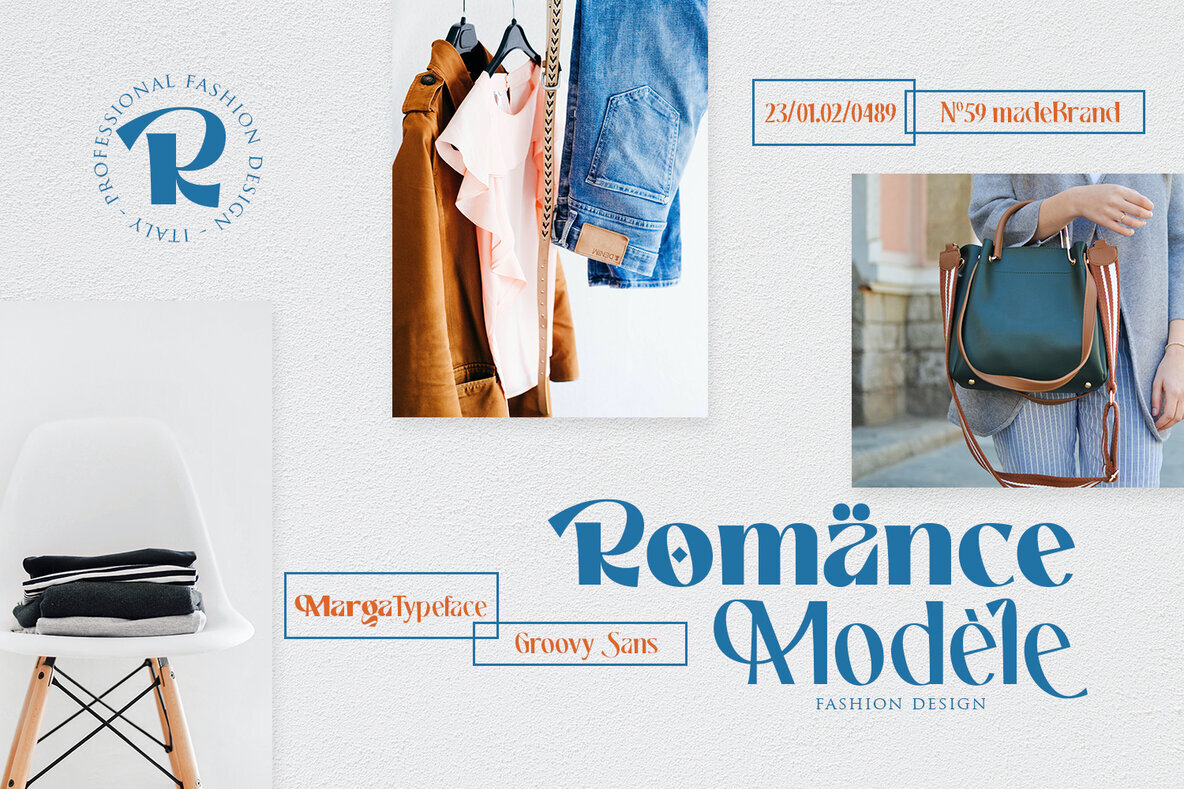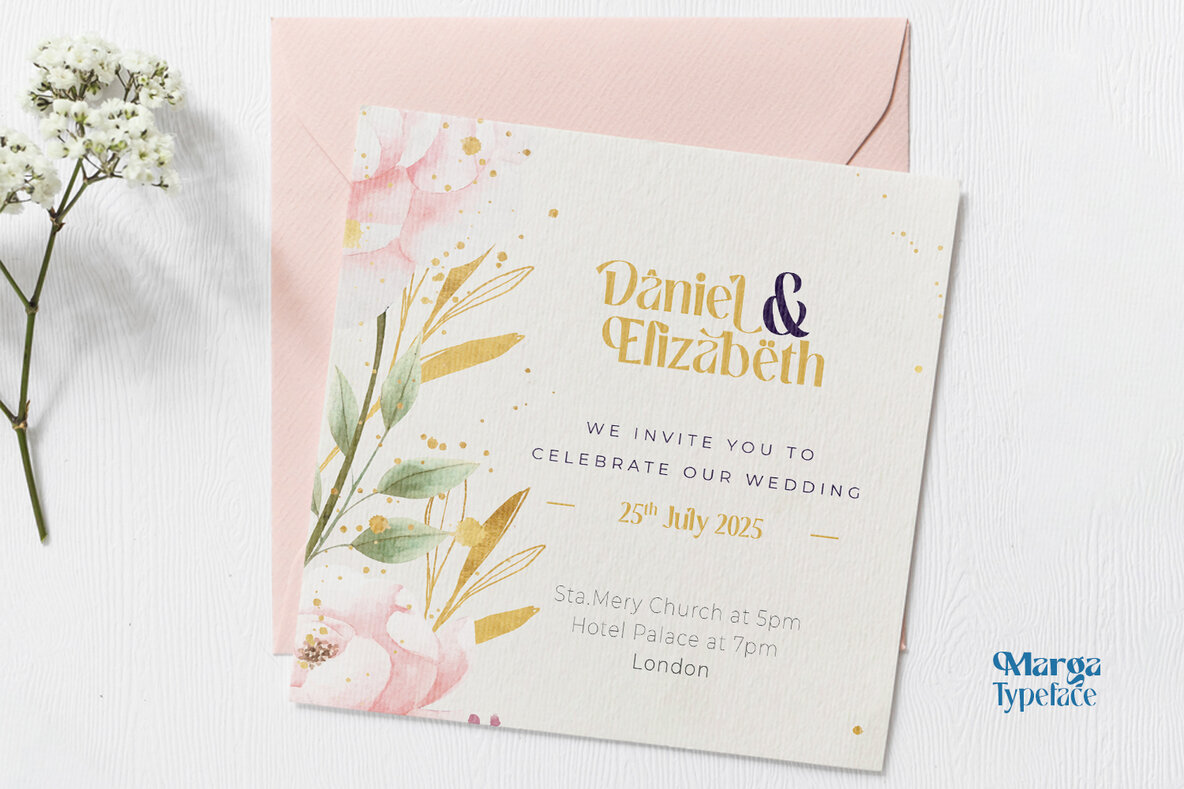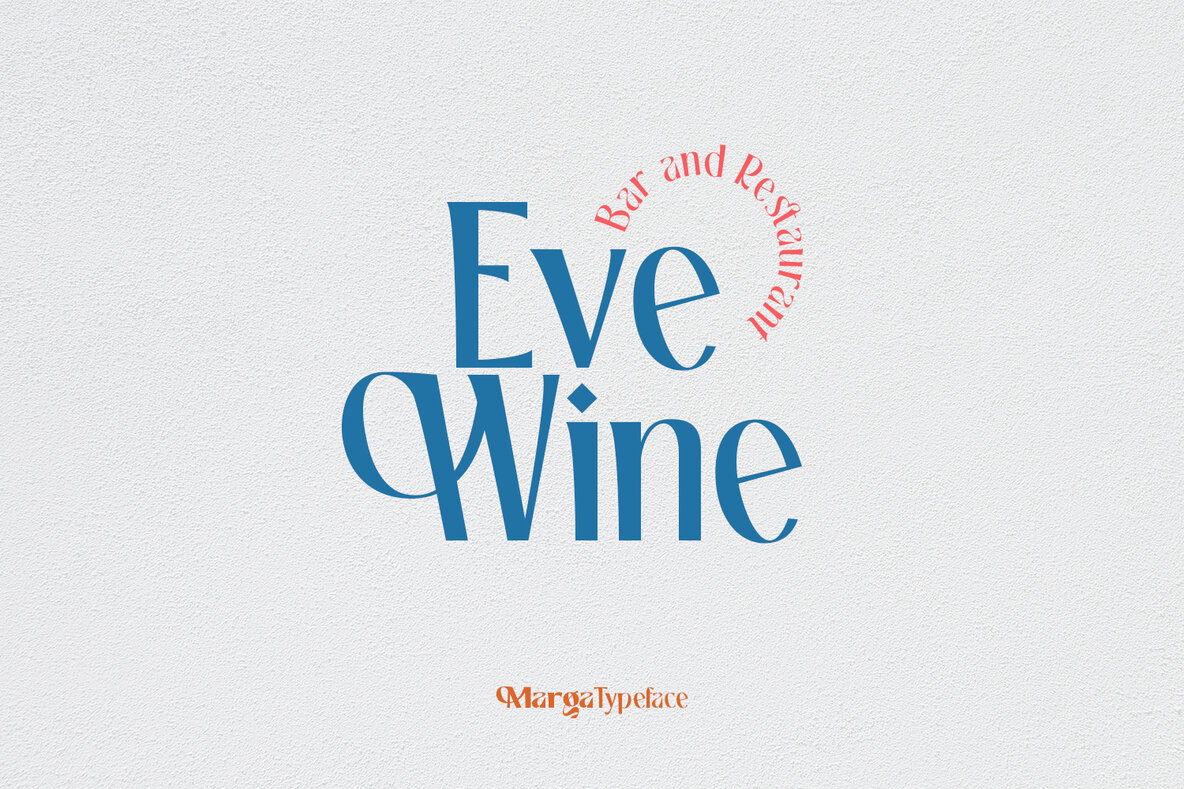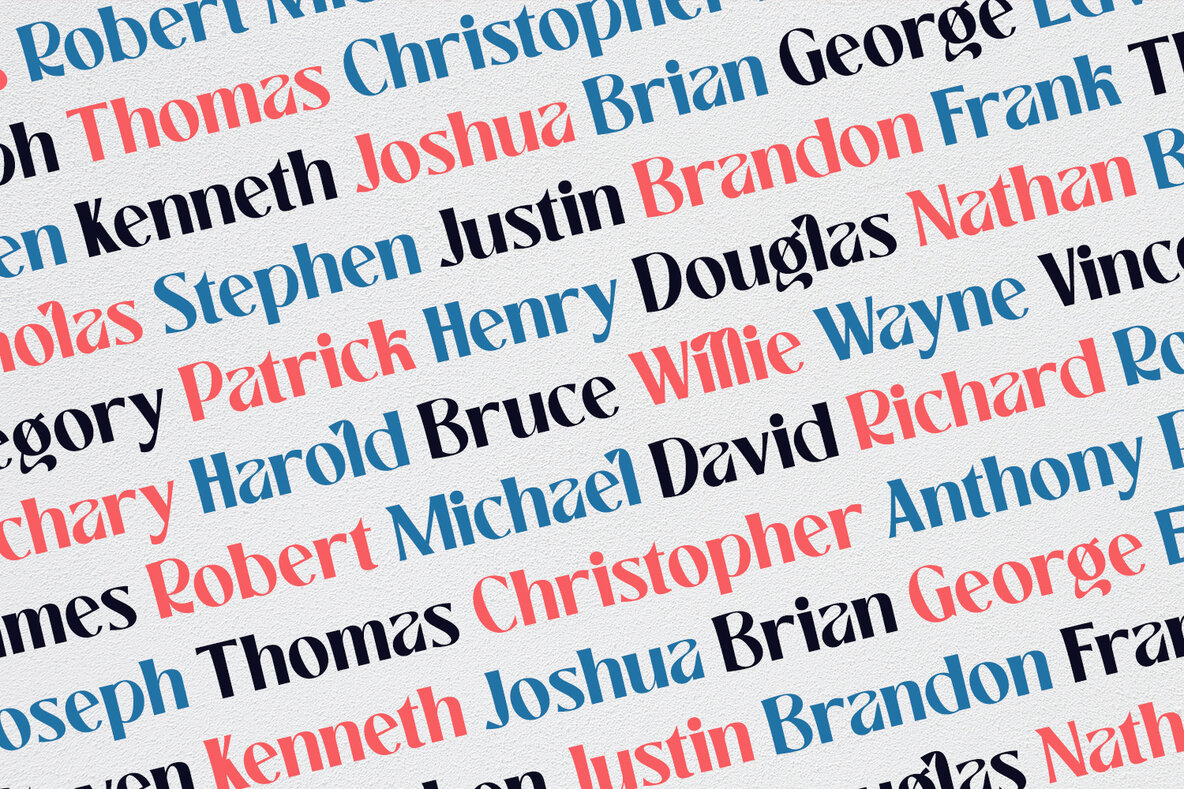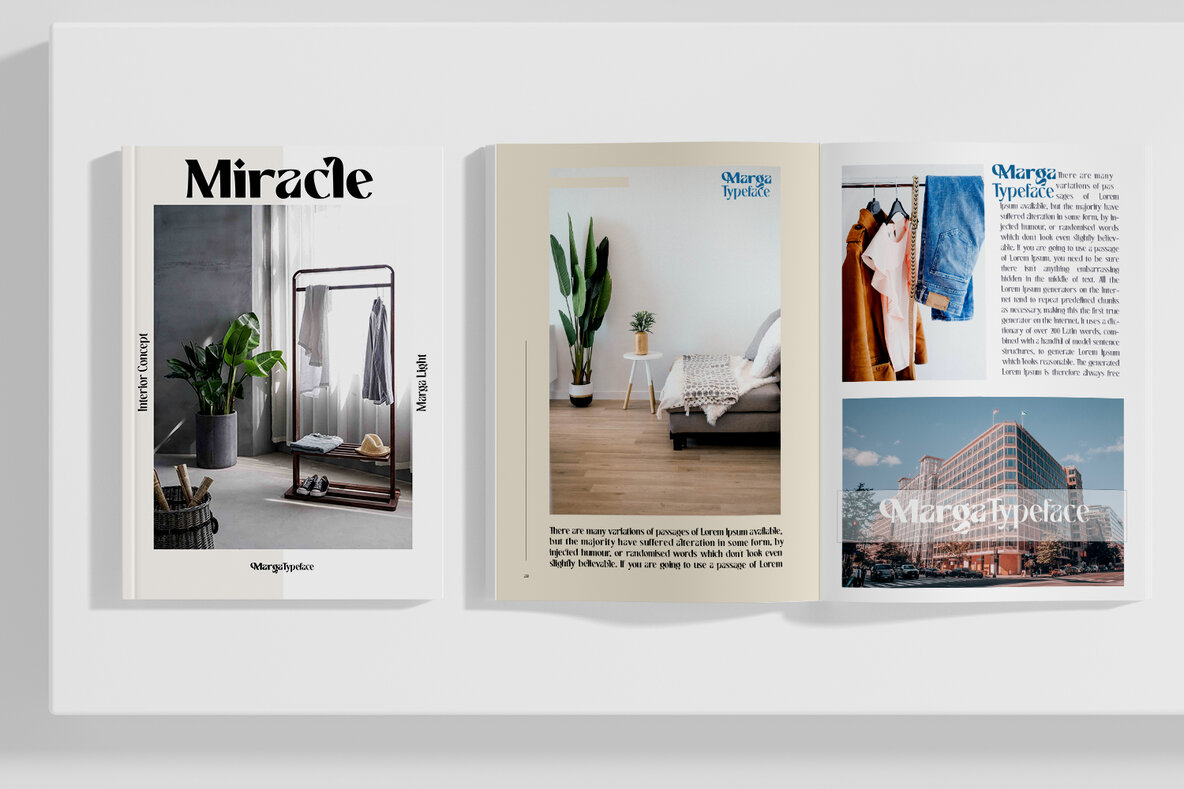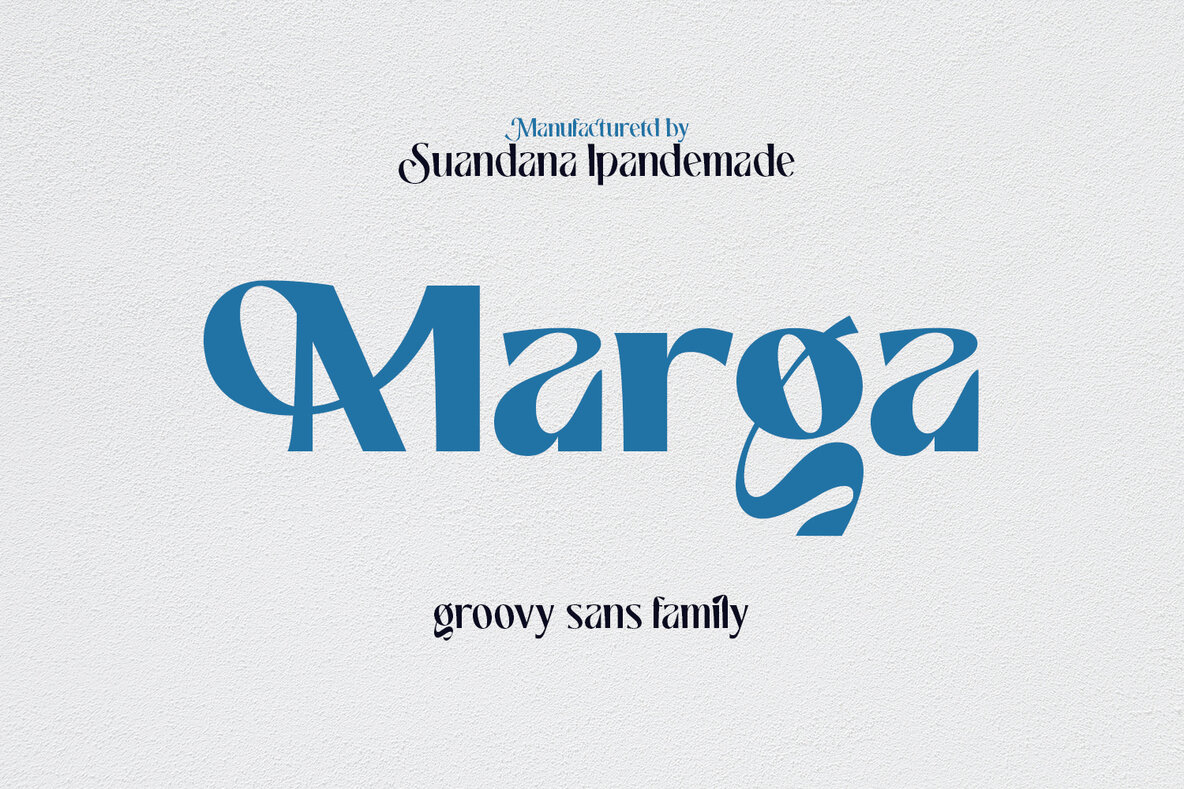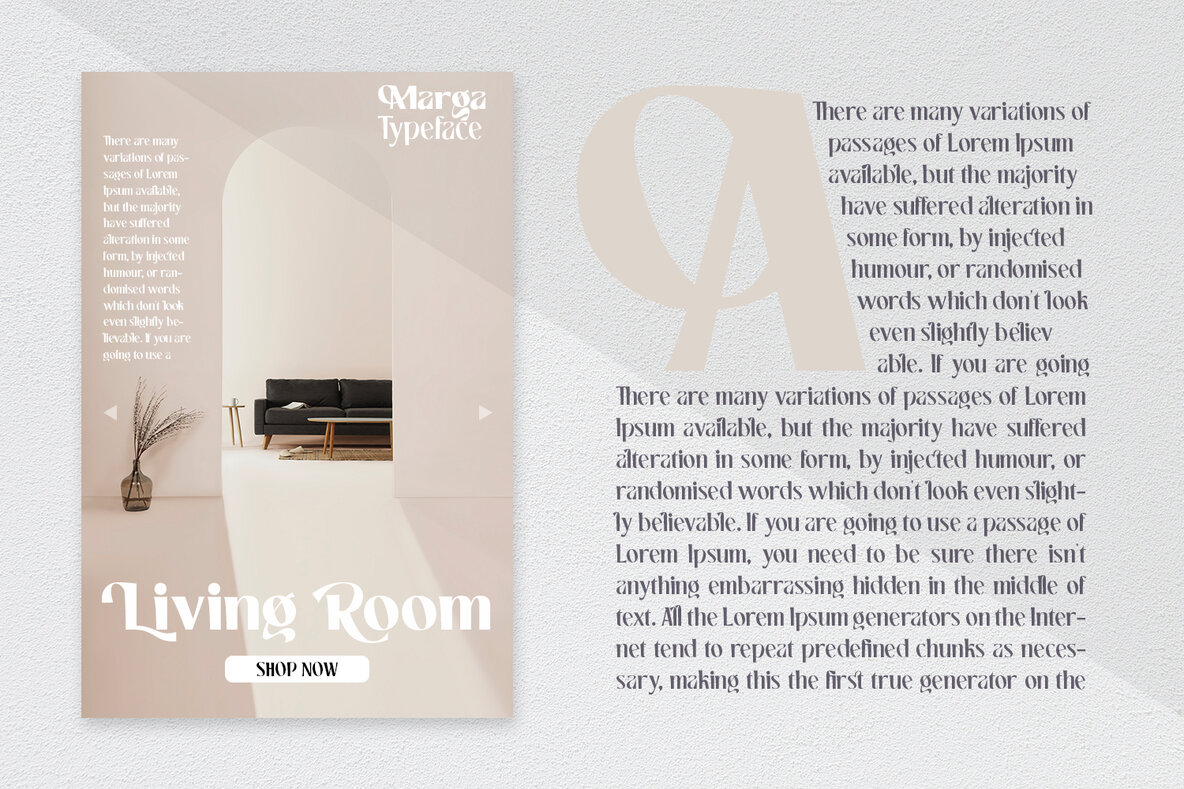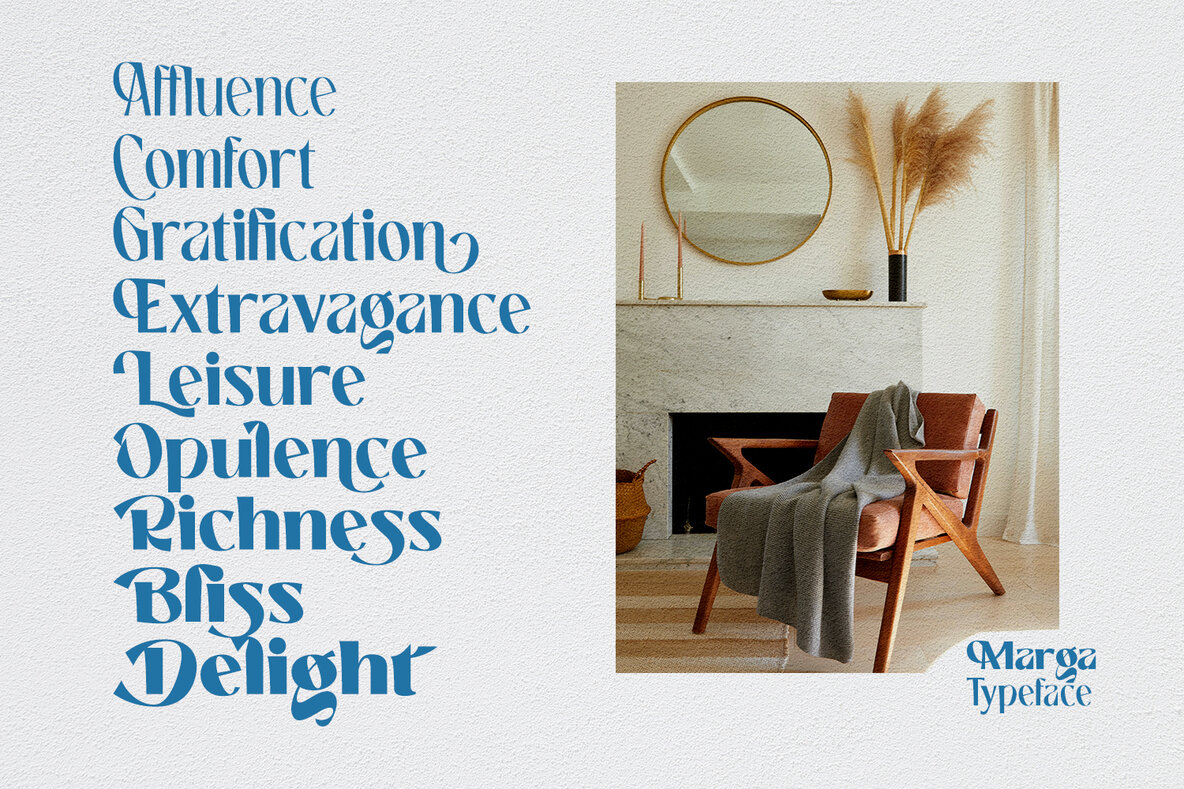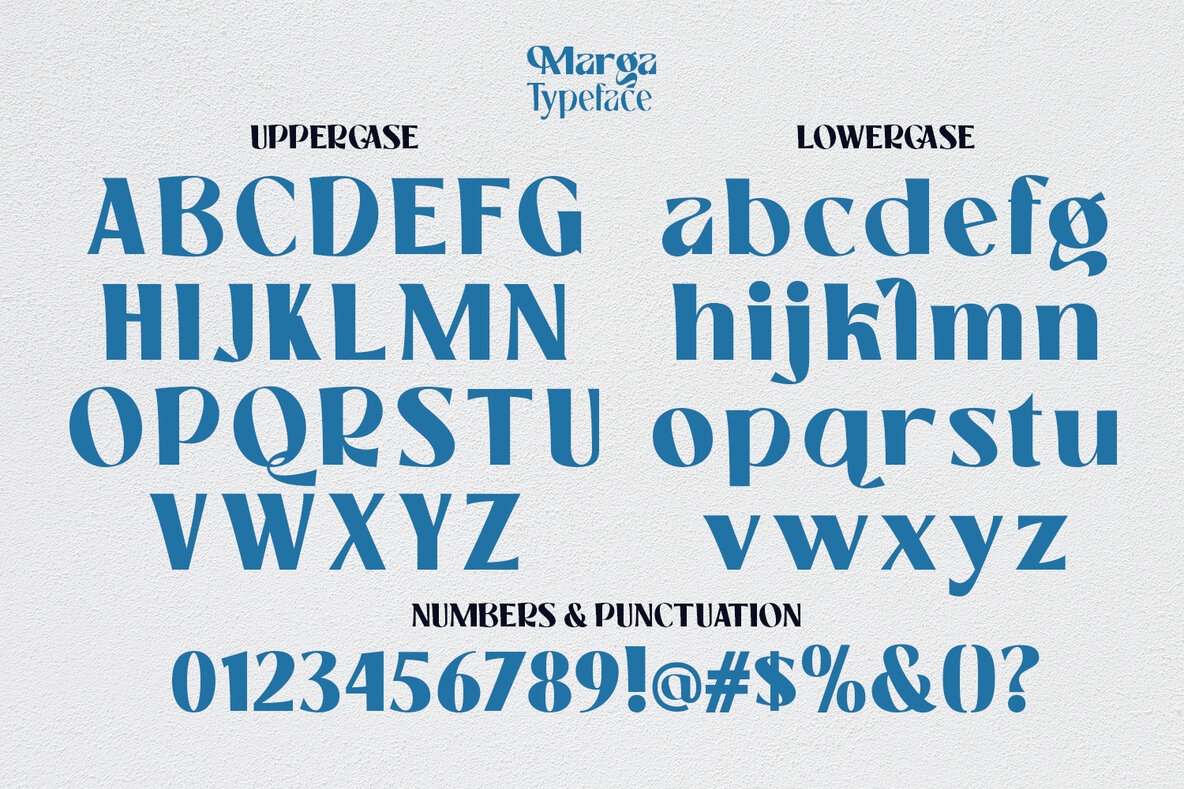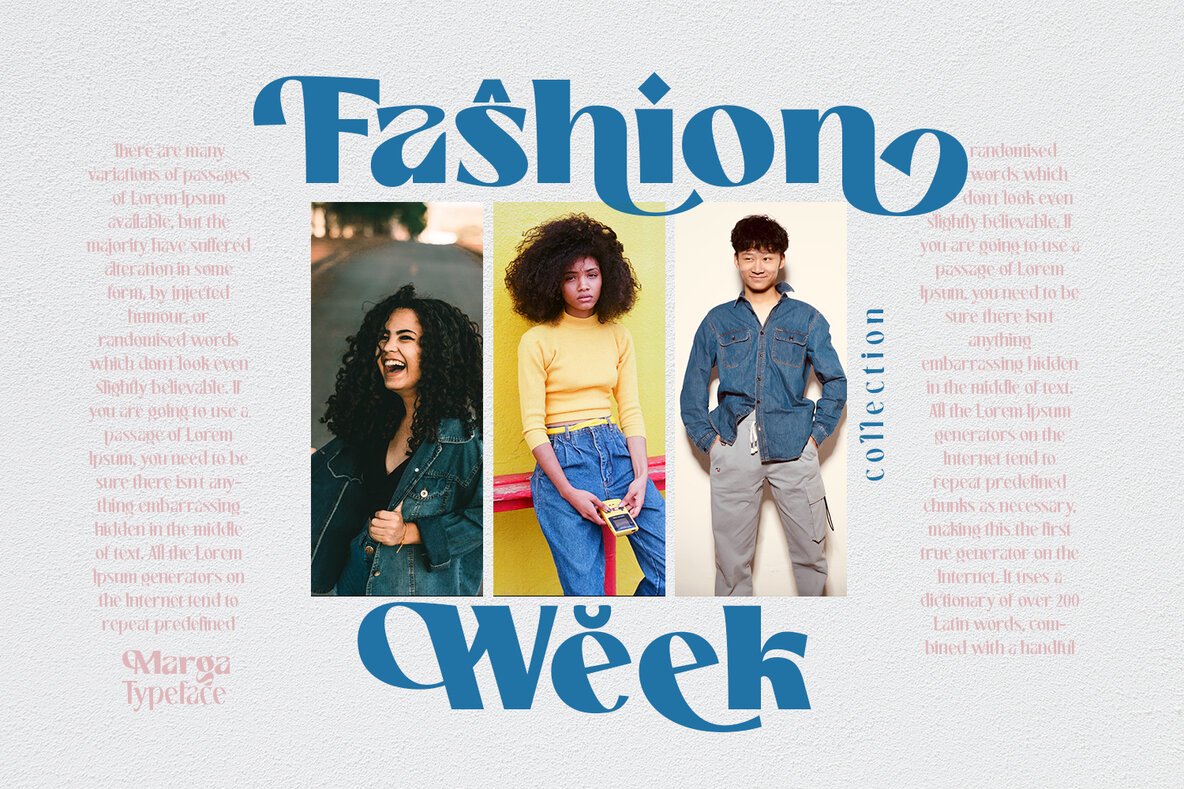
Marga Font
Marga offers an expressive sans-serif font family that includes unique alternative glyphs and ligatures, available in nine variable weights. This adaptability makes it perfect for a multitude of design projects including branding, product packaging, invitations, and more. Its distinctive flair adds vibrancy to quotes, T-shirts, labels, posters, and logo designs.Marga: Versatile Groovy Sans Family